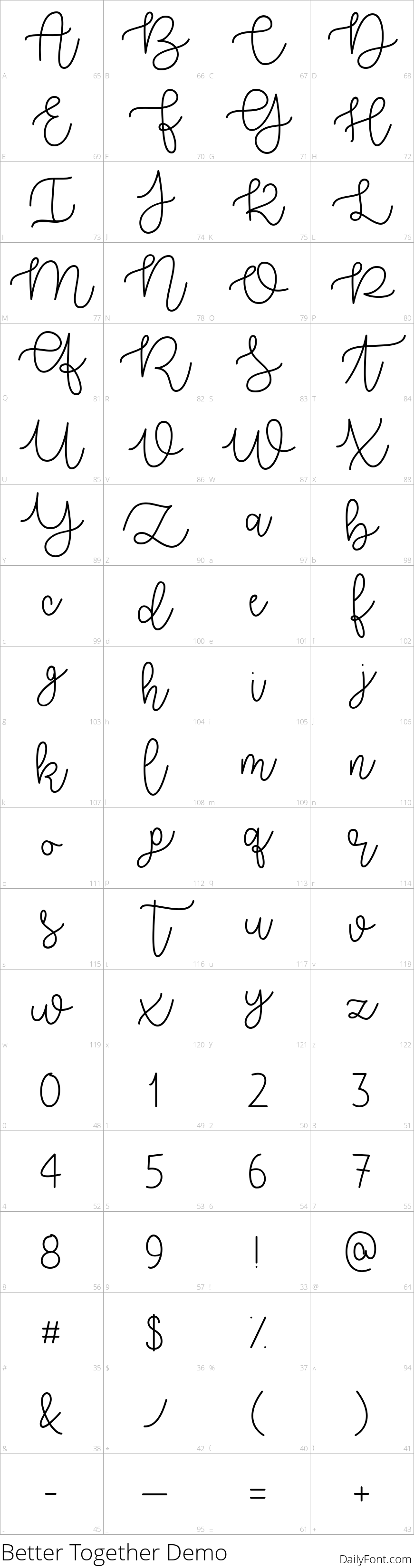
Better Together
Lively cursive script with big, bold looping swashes
"Better Together" is an exuberant cursive font that exudes a vibrant personality, making it an excellent selection for elevating your design and craft projects. With its playful and flowing characters, this typeface adds a touch of whimsy and charm to any creative endeavor. Whether you're crafting invitations, designing posters, or working on any artistic project, "Better Together" will infuse a sense of liveliness and uniqueness, ensuring your work stands out and leaves a lasting impression. So, let your imagination run wild and let "Better Together" be the creative companion that brings your vision to life!